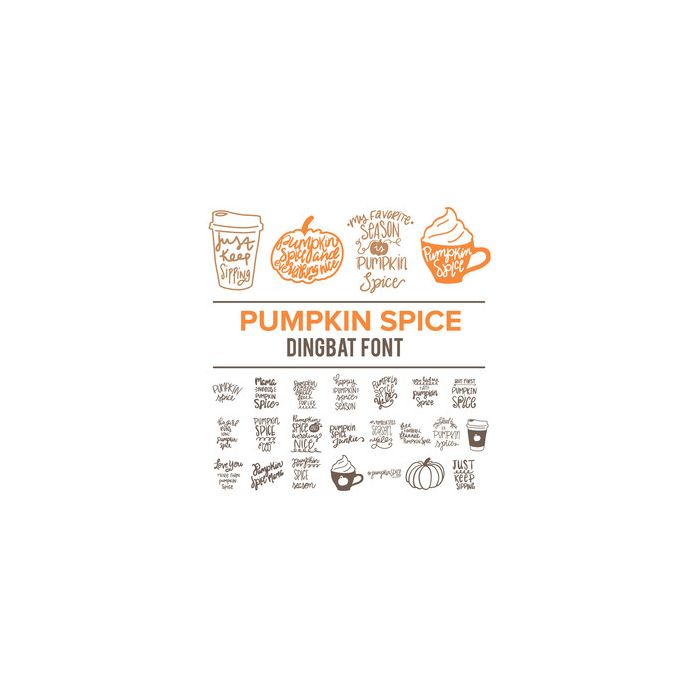
pumpkin spice dingbat font
This font comes in OTF format. Each uppercase and lowercase letter A-Z coordinates with a pumpkin spice-themed shape or saying.